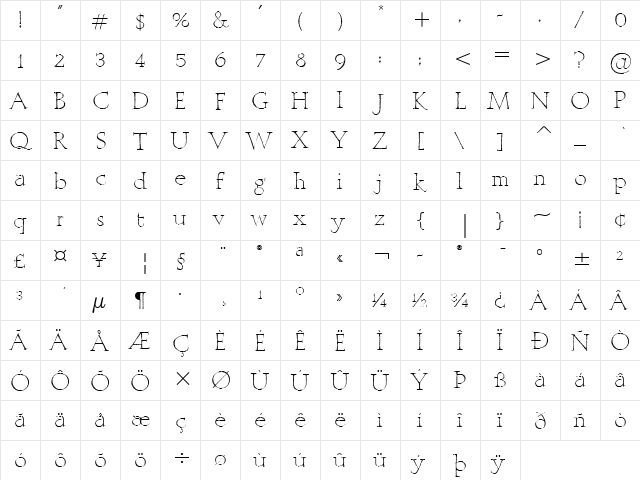
Mithras ITC Roman
Design Context for Mithras ITC Typeface
Mithras ITC is a composed and adaptable typeface that performs quietly and consistently across a wide range of design contexts.